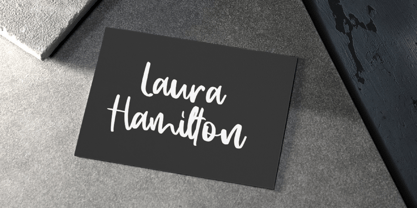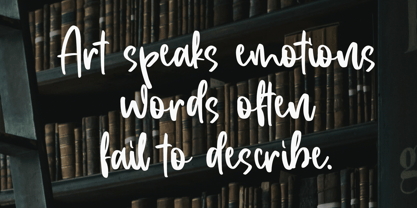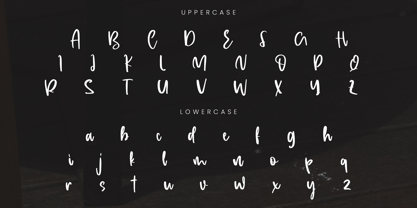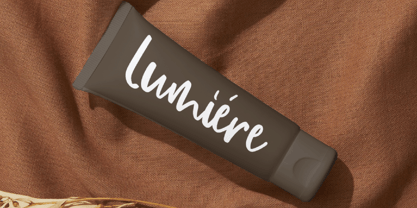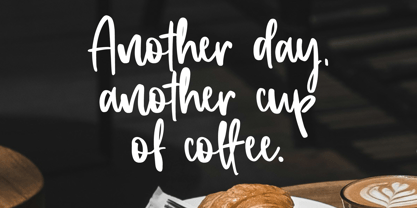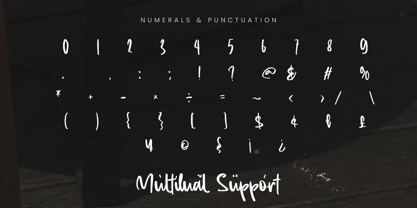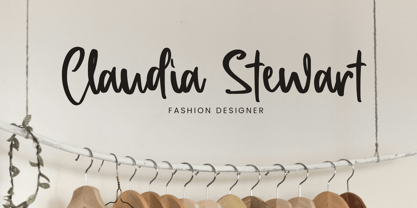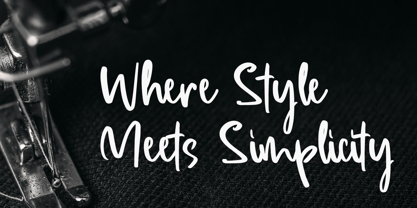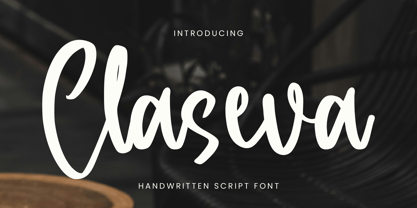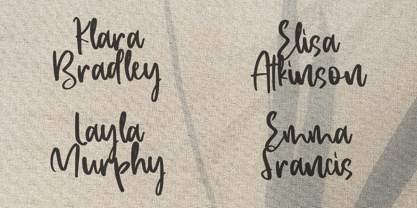
Claseva
by Rvandtype
The Claseva Font Family was designed by Randi Irvan and published by Rvandtype. Claseva contains 1 styles. More about this family
Imagine an elegant invitation, a classy product packaging, or an inspirational quotes. What makes it so special? The answer lies in the natural flow of handwritten script—and that’s exactly what Claseva brings to life.
Claseva is not just an ordinary script font. It is born from the beauty of free-flowing handwriting, delivering a warm touch in every letter. With smooth curves and organic details, this font exudes an aesthetic that is both elegant and effortlessly natural.
Designed for those who appreciate beauty, Claseva is perfect for branding, product packaging, wedding invitations, and social media content that demands a more exclusive feel. Each character is crafted with a perfect balance of elegance and spontaneity, creating a distinctive charm that sets it apart from other fonts.
With Claseva, your design won’t just look beautiful—it will feel beautiful.
Designers: Randi Irvan
Foundry: Rvandtype